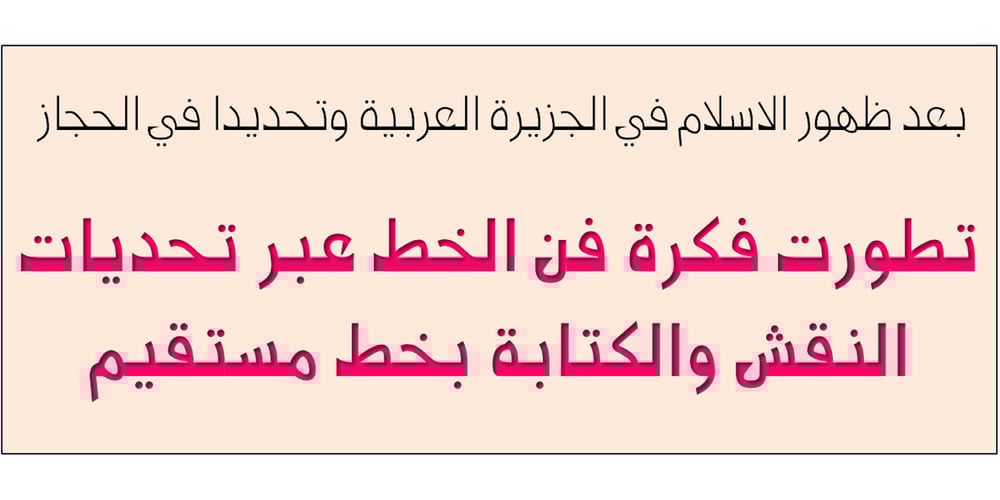
Khatt
Khatt font
Khatt Font Family was designed by Saad D. Abulhab and published by Arabetics. Khatt contains 10 styles and family package options. Khatt tries to mimic the concept behind the meaning of the Arabic word Khatt: a straight horizontal line. The word Khatt is also the word for calligraphy in the Arabic language. Even though Khatt is a cursive style font it offers clearly distinguished and visually unified letter shapes in every position of a word. Khatt supports all Arabetic scripts covered by Unicode 6.1, and the latest Arabic Supplement and Extended-A Unicode blocks, including support for Quranic texts. It comes with five weights, regular, medium, bold, light, and ultra-light. Each weight has normal and left-slanted “italic” styles. The script design of this font family follows the Arabetics Mutamathil Taqlidi style and utilizes varying x-heights. The Mutamathil Taqlidi type style uses one glyph per every basic Arabic Unicode character or letter, as defined by the Unicode Standards, and one additional final form glyph, for each freely-connecting letter in an Arabic text. Khatt includes the required Lam-Alif ligatures in addition to all vowel diacritic ligatures. Katts’s soft-vowel diacritic marks (harakat) are positioned with most of them appearing on similar lower or upper positions to emphasize they are not part of letters.